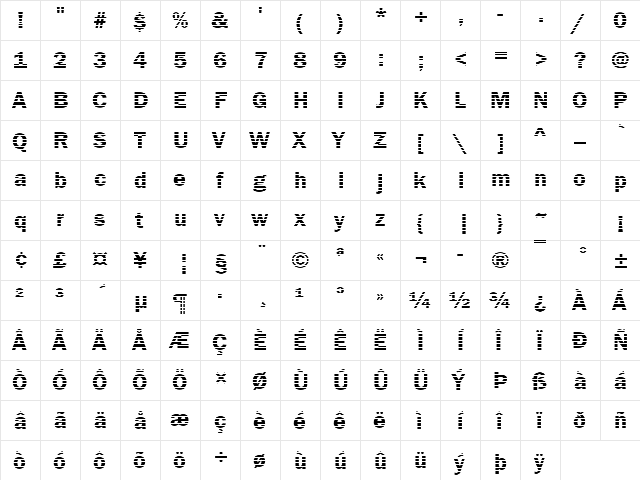
Franklin02 Becker Regular
Design Context for Franklin02 Becker Typeface
Franklin02 Becker takes a measured approach to typography — its balanced proportions and neutral character make it a reliable workhorse for both digital and print work.